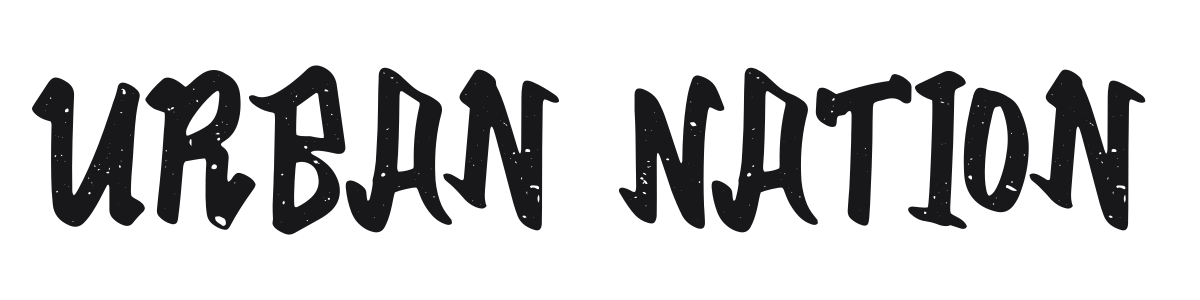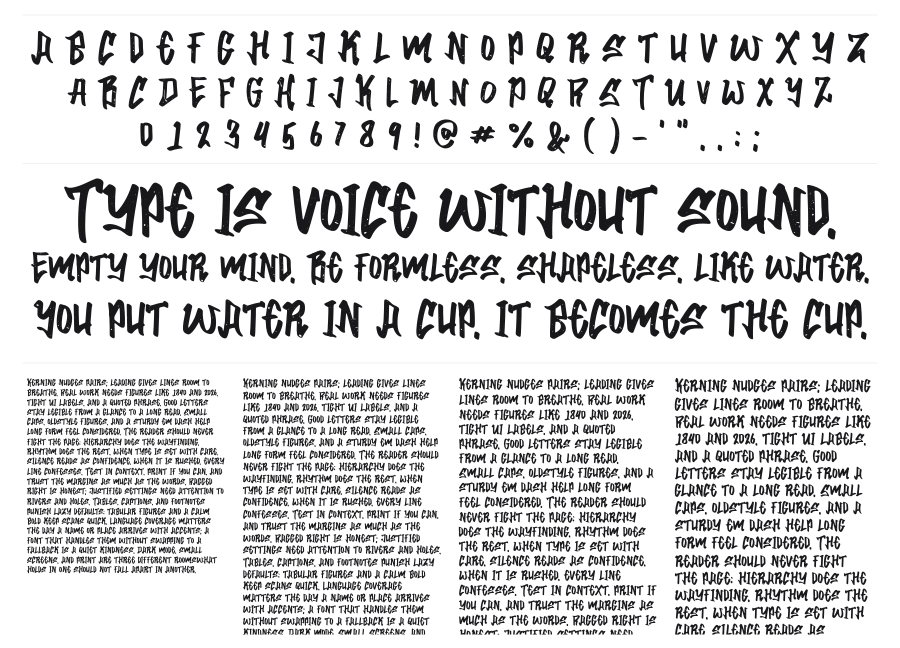
Urban Nation
Urban Nation is a bold distressed display font built on graffiti and street-art energy. Every character carries rough ink-worn texture and sharp angular strokes that feel hand-painted on concrete. Strong at large sizes for posters, album covers, and streetwear branding.